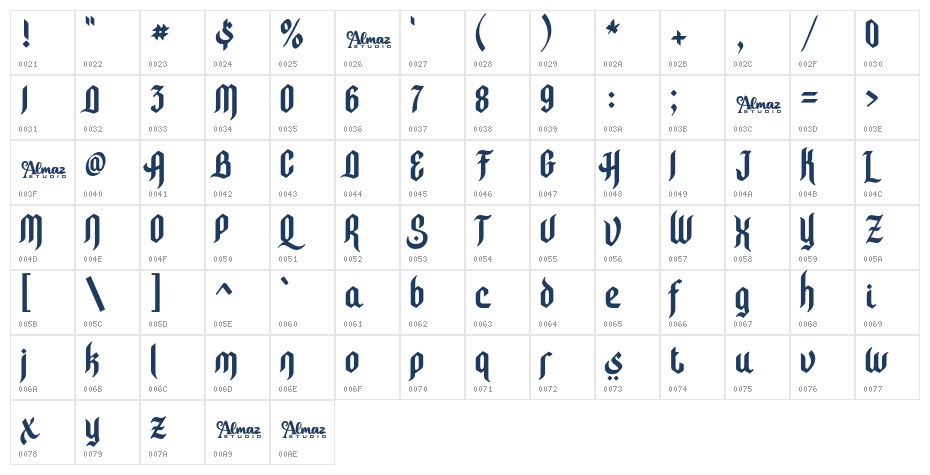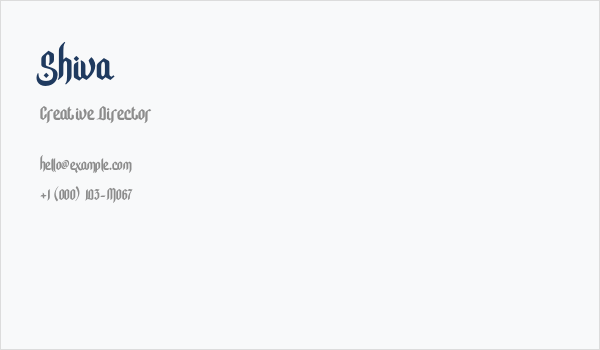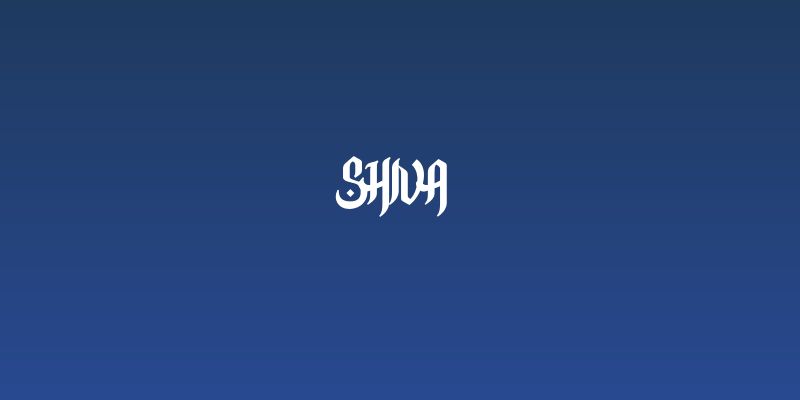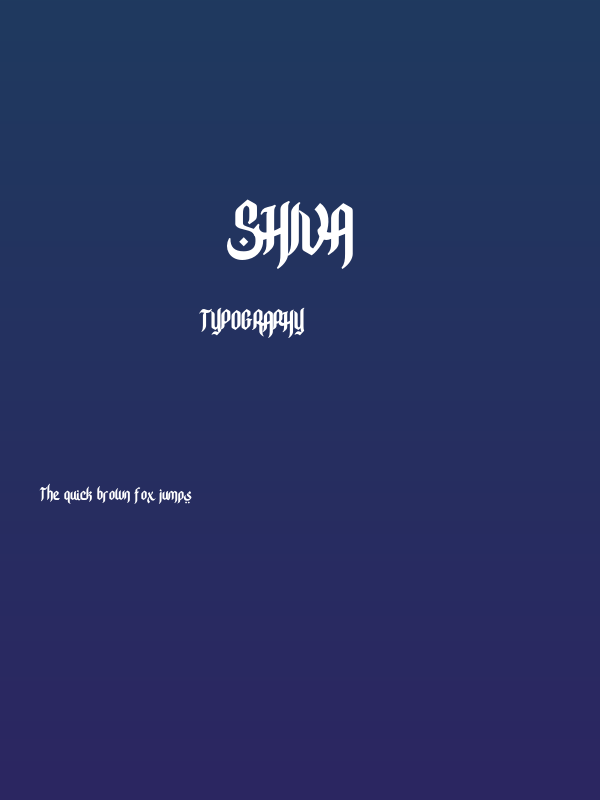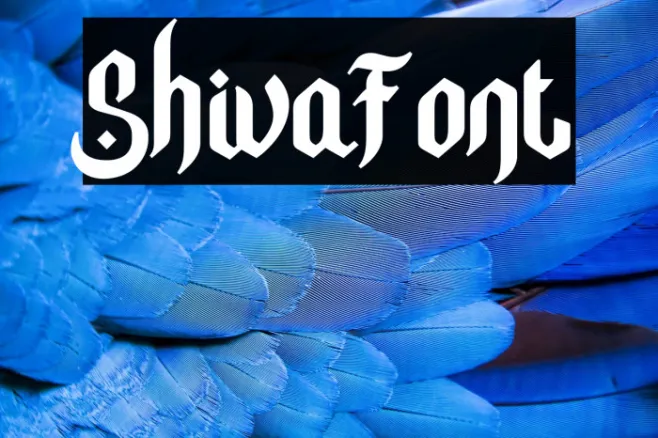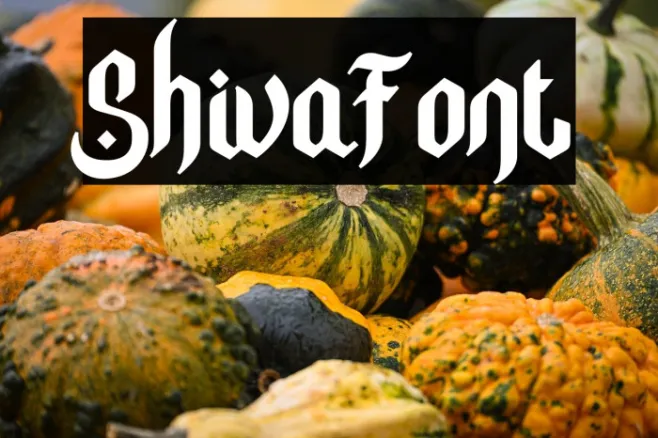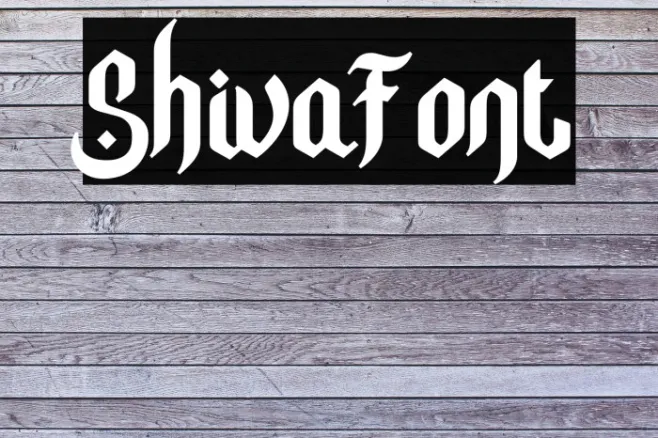
Shiva Font
Shiva Description
A Gothic or Blackletter style font with ornate, angular, and dramatic letterforms.
| Overall Style | Gothic, Medieval, Vintage |